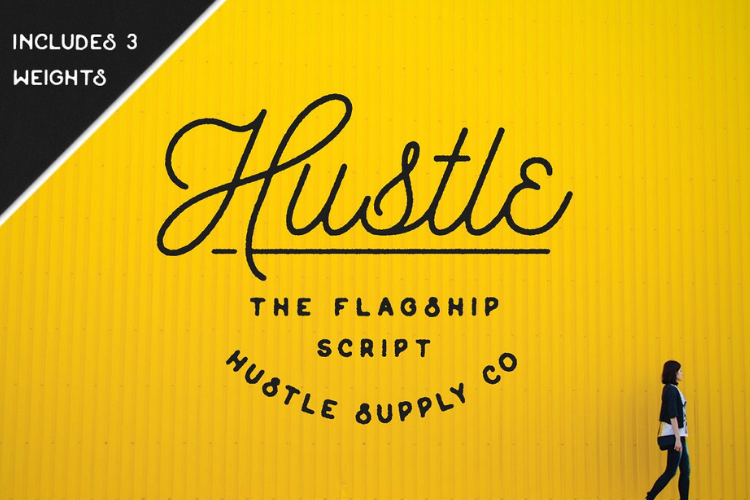
Hustle Script - Monoline
After months of work, Hustle Script is finally ready to be released. Hustle Script is a mono-weight script typeface that includes 3 weights; Light, Regular, Bold. It doesn't take much to make this typeface look great in a project. It's a new tool at your disposal that gives you that hand lettered one pass look that many people love.
Hustle Script comes in OTF format with a few alternate characters which can be seen in the product preview. Since the creation of this typeface, I've used it on numerous projects and I hope that you enjoy it as much as I do! Feel free to convert this font to a web font if you so please.